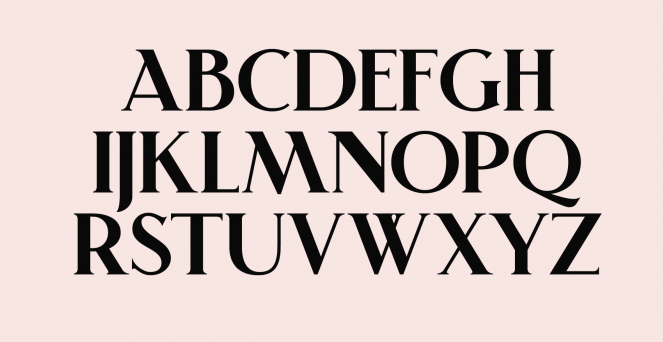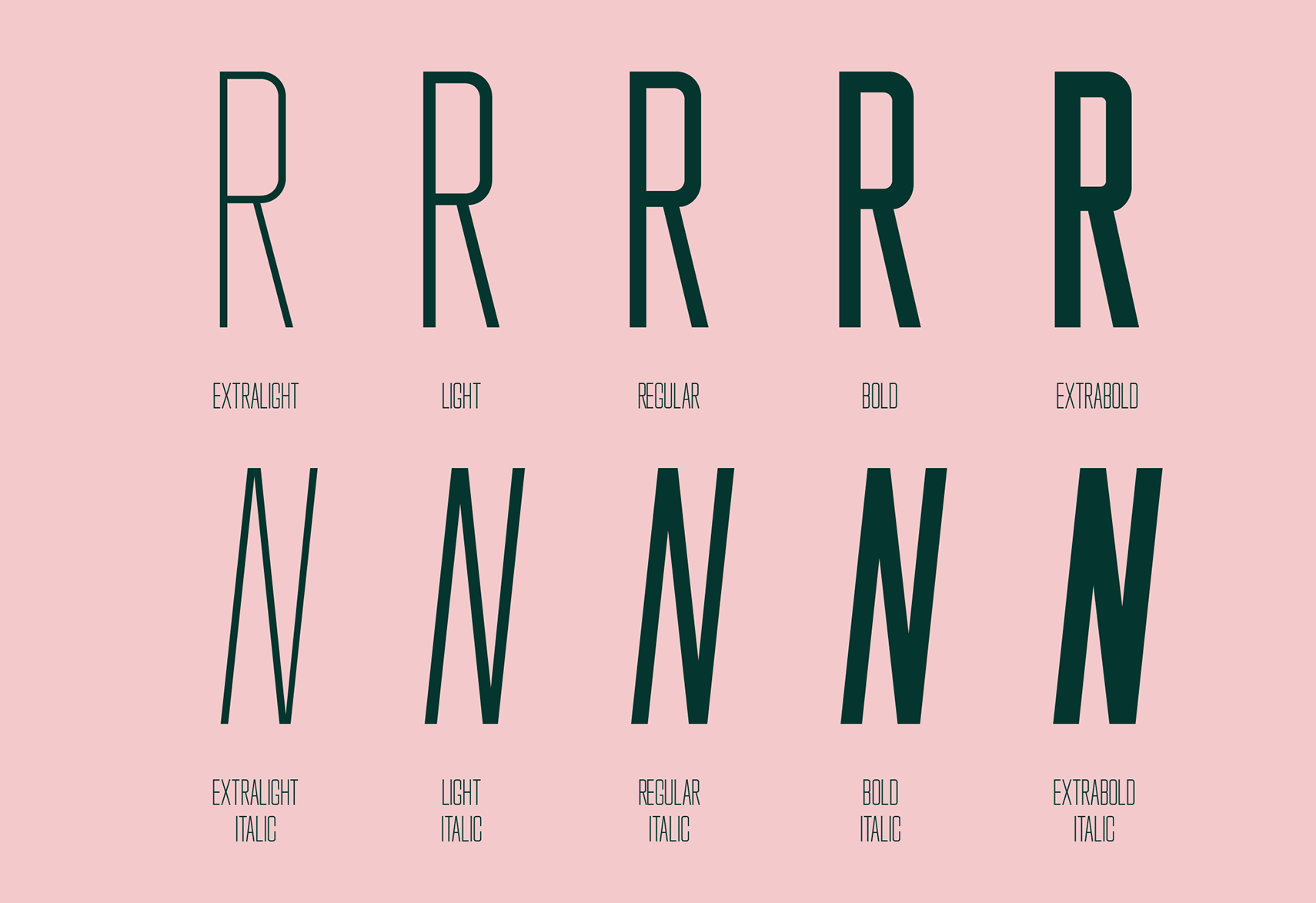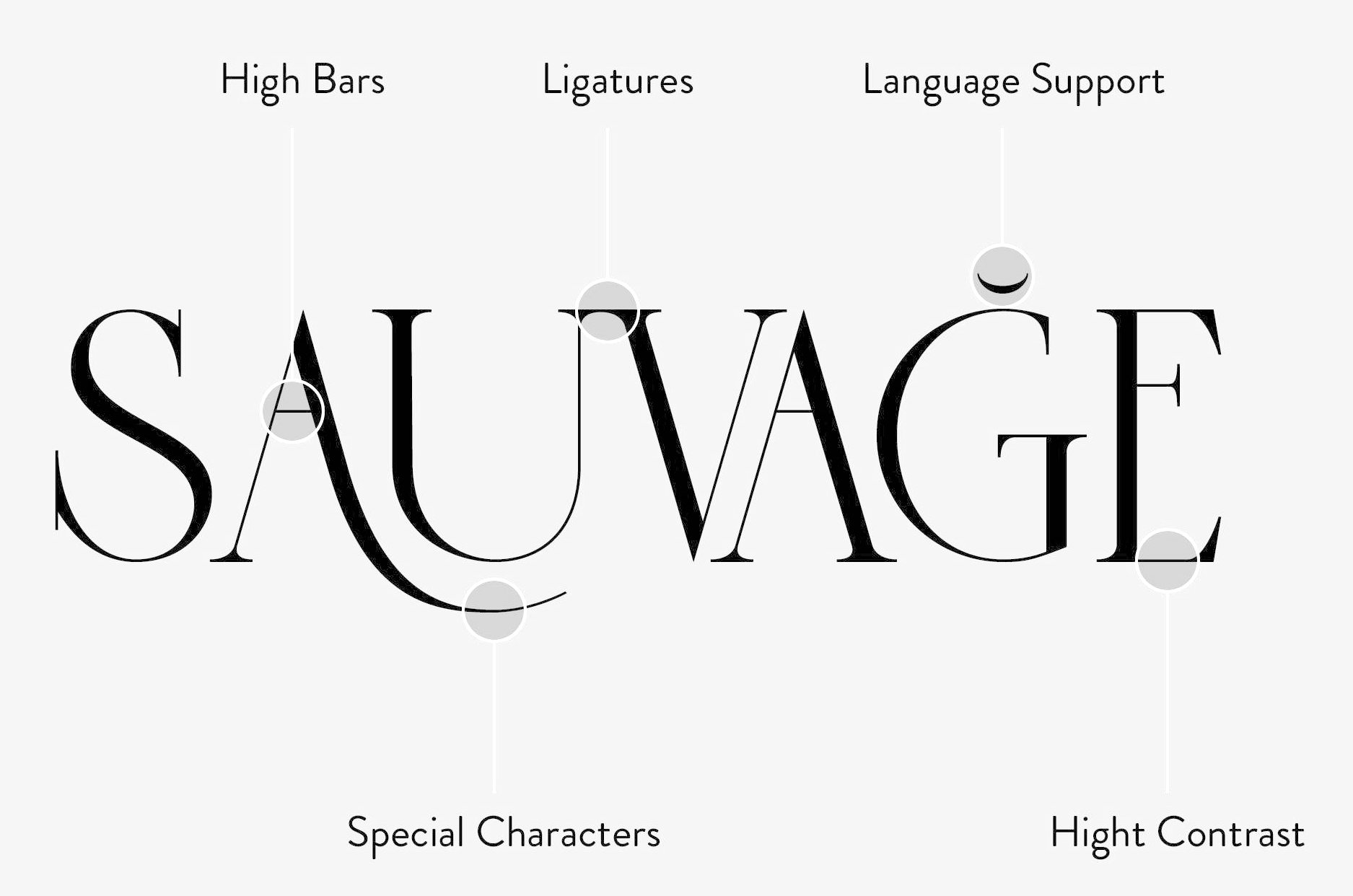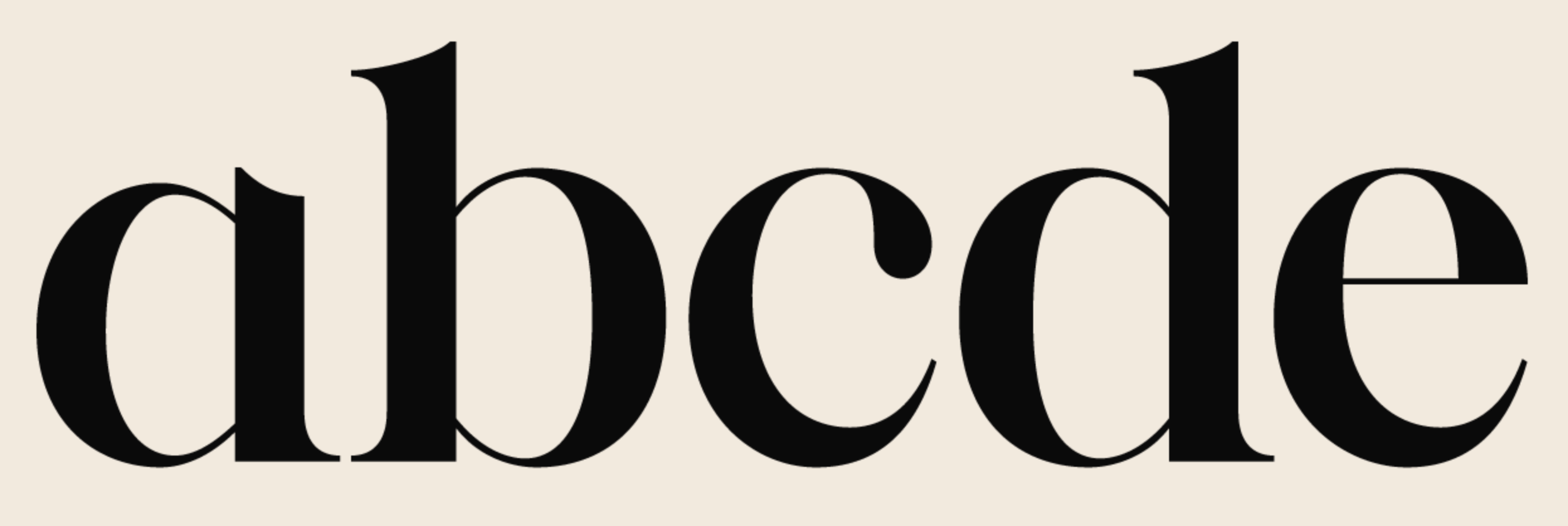
Sweetest Goods
German designer of these typefaces in 2019: Sauvage (a stylish display typeface), Celesse (a display serif typeface), Limitless (a condensed squarish all caps typeface family), Sugar Rush (script).
In 2020, they released the fashion mag typefaces Vanda (a starry and threatening display typeface à la Barnbrook), Vultura, Chatoyer, the decorative sharp-angled serif typeface Sovana (a display serif), and the decorative all caps serif typeface Askja.
Typefaces from 2021: Astralaga (a decorative serif family with five styles), Josseline (a stylish fashion mag font), Apricosa (a modern display serif).